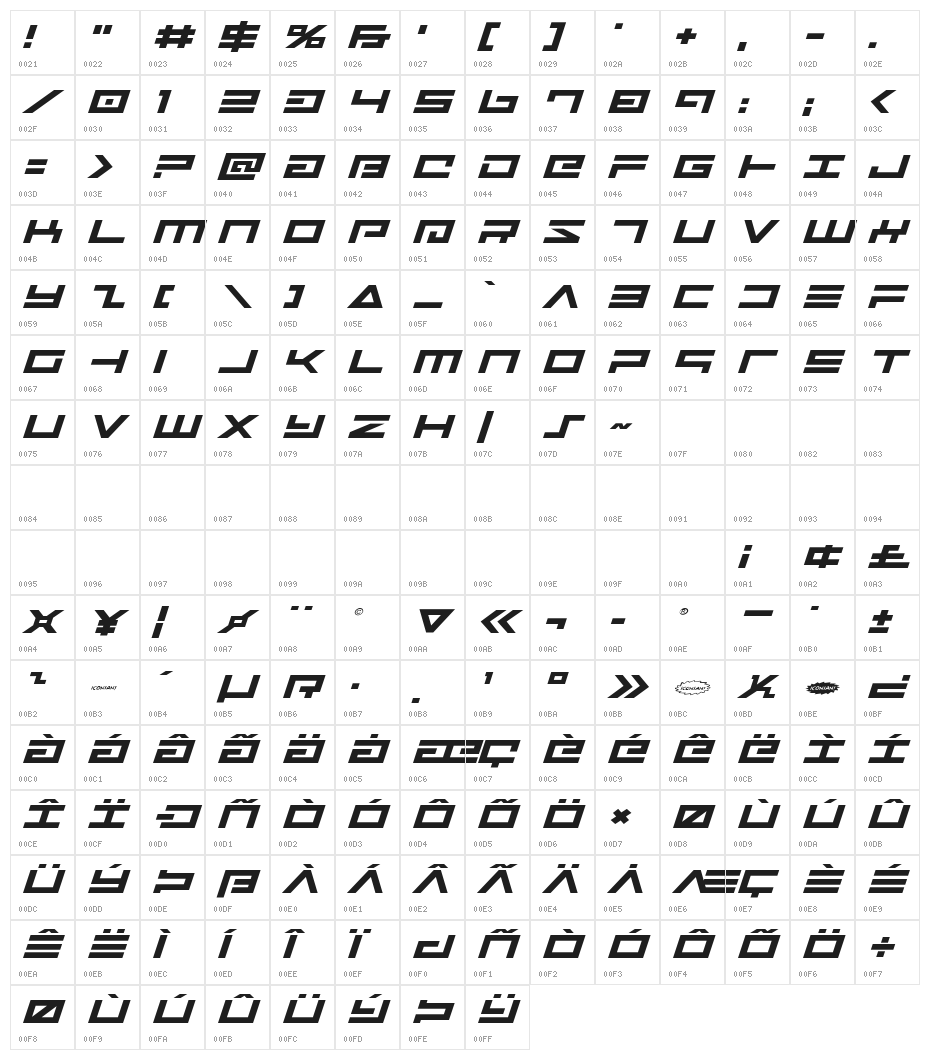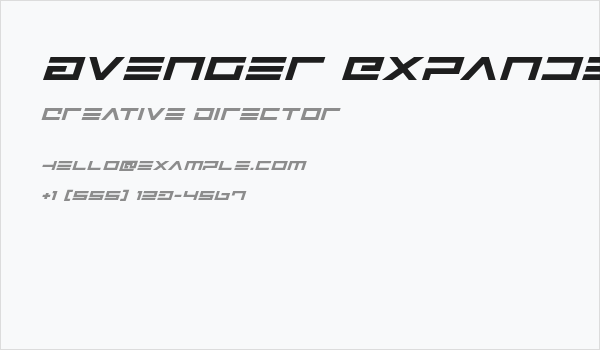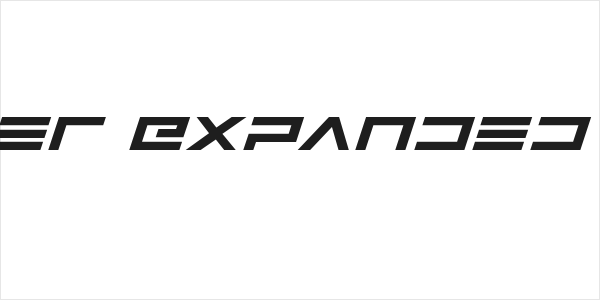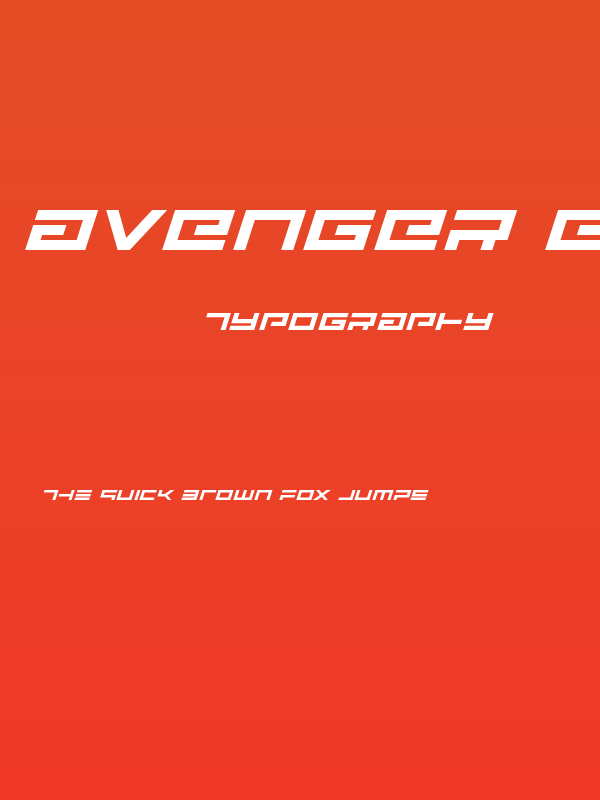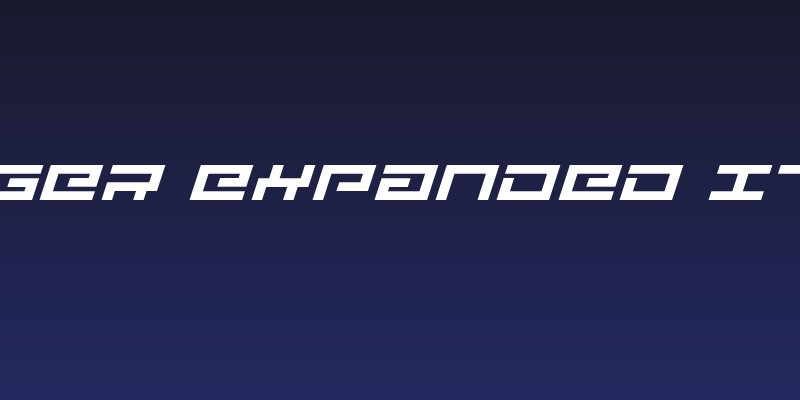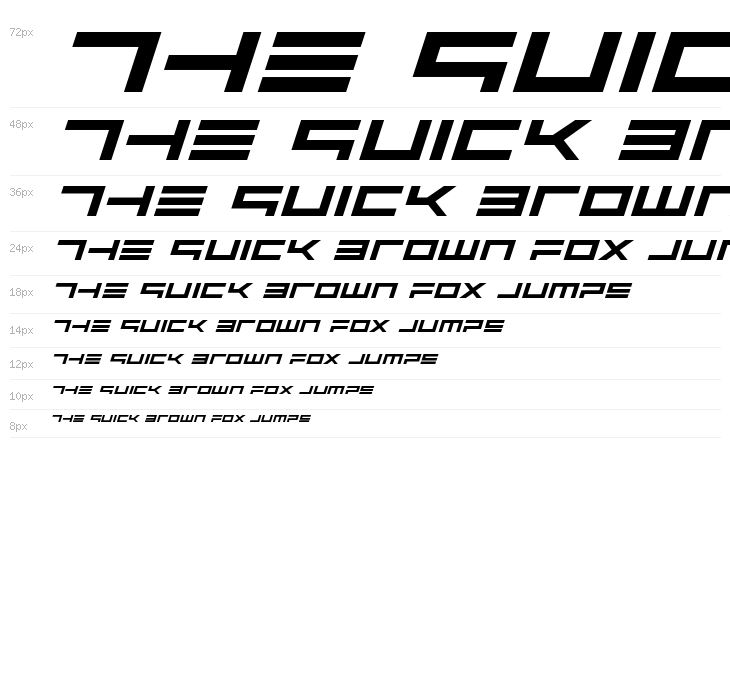
Avenger Expanded Italic Font
Avenger Expanded Italic Description
This font features a bold, futuristic design with a strong geometric structure. The characters are expanded and italicized, giving a dynamic and forward-moving appearance. The angular shapes and sharp edges create a sense of speed and modernity. The uppercase and lowercase letters maintain a consistent style, with the lowercase slightly smaller but equally bold. Numbers and special characters are designed to match the overall aesthetic, ensuring uniformity across all text elements. This font is ideal for projects that require a modern, tech-savvy look.
| Proposed Projects | Ideal for sci-fi movie posters, tech company logos, video game titles, and futuristic branding. |